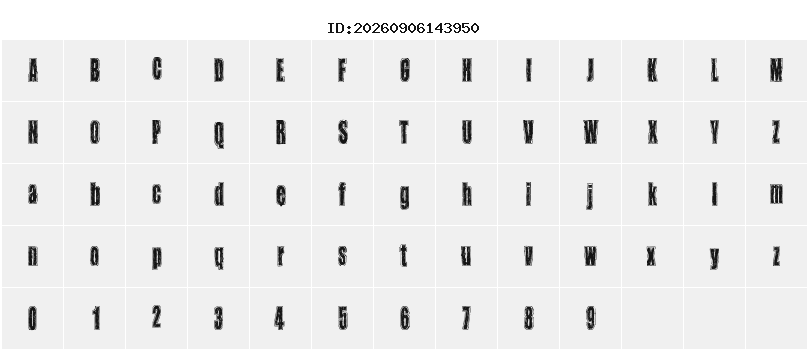
Takapiru Preview
• Font Name: Takapiru
• Full Font Name: Takapiru
• Version: Version 1.00 April 24, 2014, initial release
About Takapiru.ttf
Takapiru.ttf is a modern, elegant sans-serif font designed for ultimate readability and visual harmony. Perfect for branding, headlines, web design, and print materials.